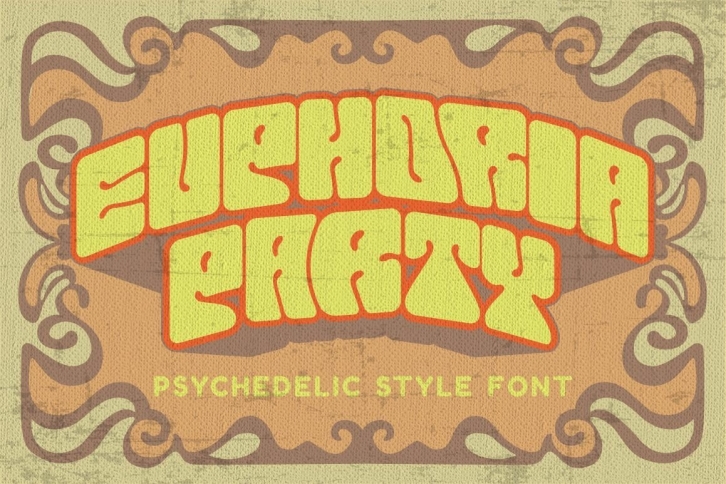
Euphoria Party is a great font that was designed by PutraCetol Studio. Imagine the amount of combinations you can create using this font! The archive is 5.49 MB and it was released on March 10, 2021. Euphoria Party looks beautiful on wedding invitations, greeting cards, logos, posters, labels, t-shirt designs, logos, business cards and is perfect for use in ink or watercolor works, fashion, magazines, packaging and food menus, children's books and more!